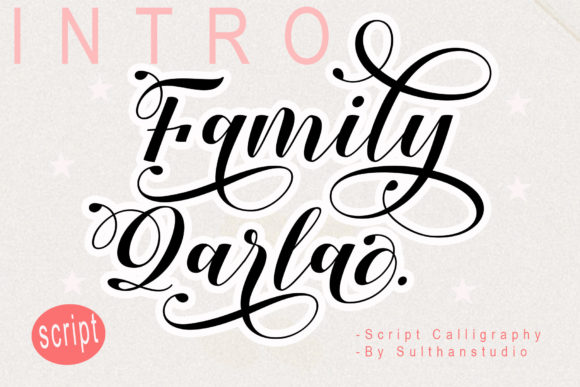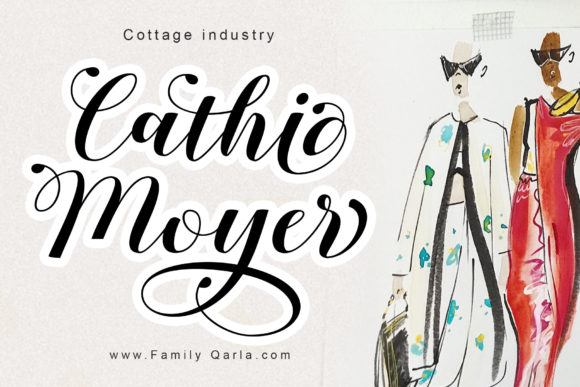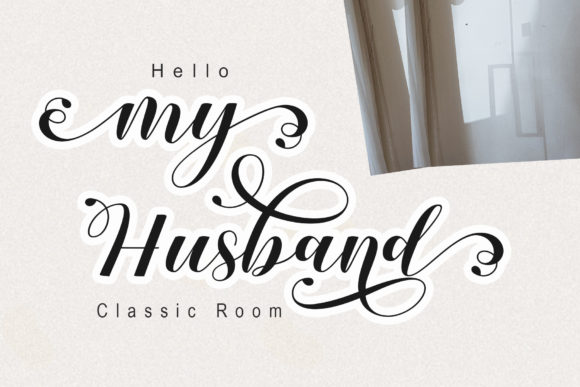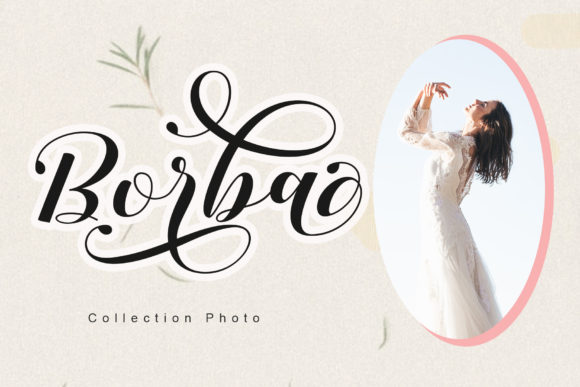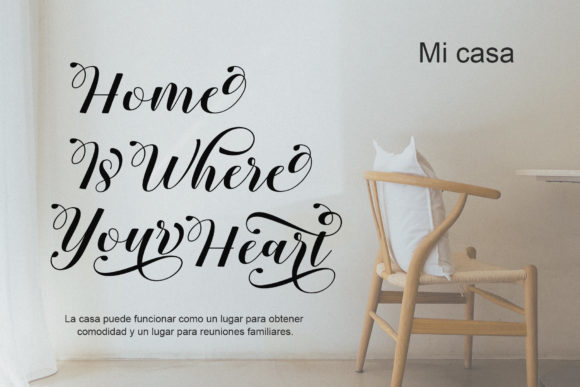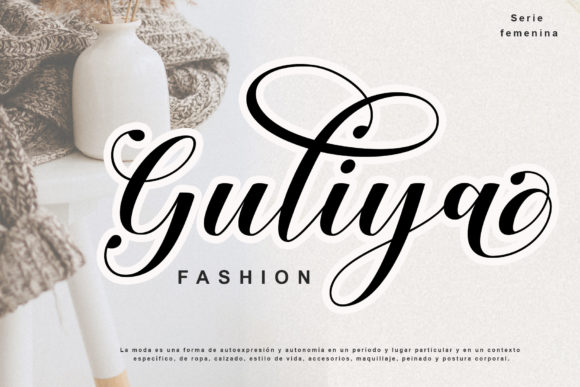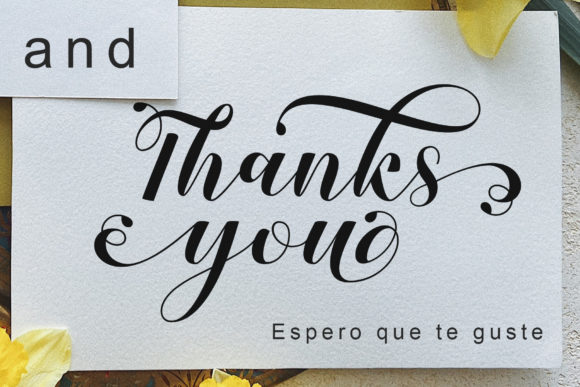
Family Qarla Script Font
About Family Qarla Script Font
“Family Qarla Script” stands as an elegant calligraphy font, radiating sophistication and charm. Its graceful curves and intricate design make it a versatile choice for a wide array of applications. Whether it’s for logos, product packaging, wedding invitations, branding, headlines, signage, labels, book covers, posters, quotes, and more, this font seamlessly adapts to various purposes.
The allure of “Family Qarla Script” lies in its elegant calligraphic style, which adds a touch of refinement to any project. Its fluid strokes and balanced characters contribute to an aesthetic that resonates with sophistication and visual appeal. This font is well-suited for both formal and creative design endeavors.
The PUA encoding feature of “Family Qarla Script” allows for easy access to its extensive collection of glyphs and swashes. This aspect empowers designers to effortlessly incorporate unique and artistic elements into their work, enhancing their creative possibilities and enabling personalized designs.
By incorporating “Family Qarla Script” into your design projects, you’re embracing its elegance and calligraphic charm. By harnessing its refined style, you’re infusing your creations with a touch of timeless beauty. This font becomes a versatile tool for enhancing the visual allure of your work, ensuring it resonates effectively with your intended audience across a multitude of design applications.